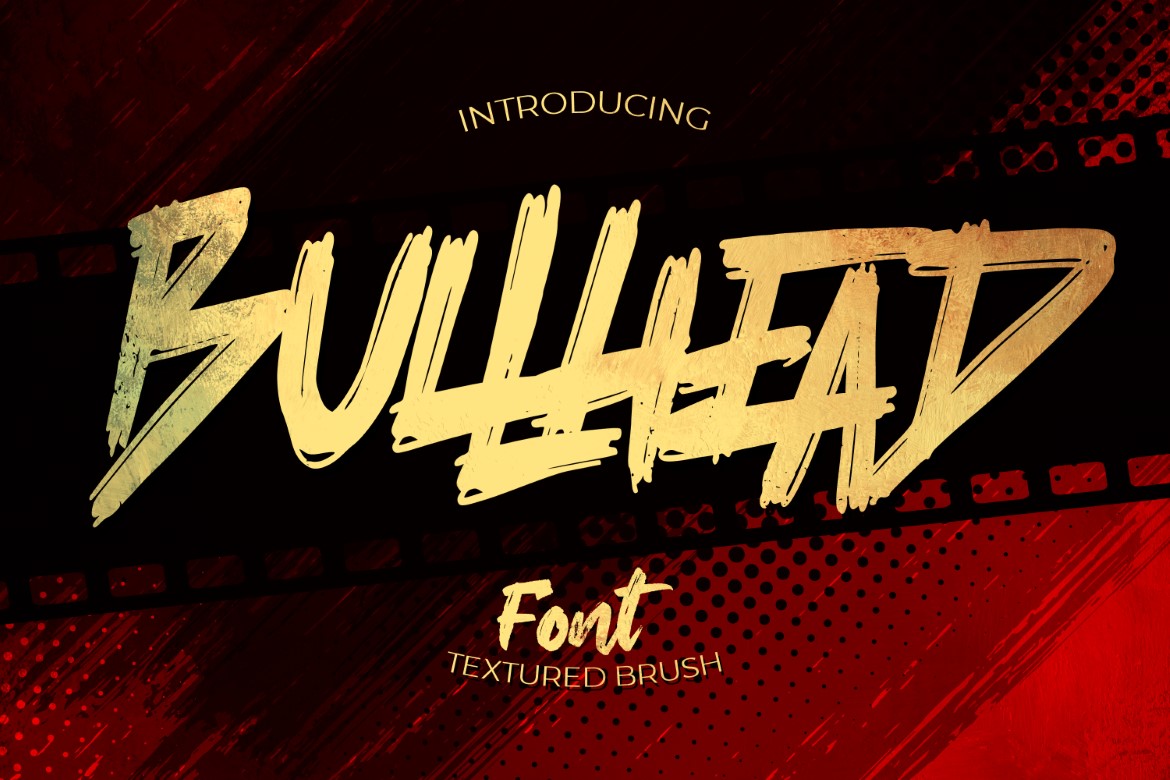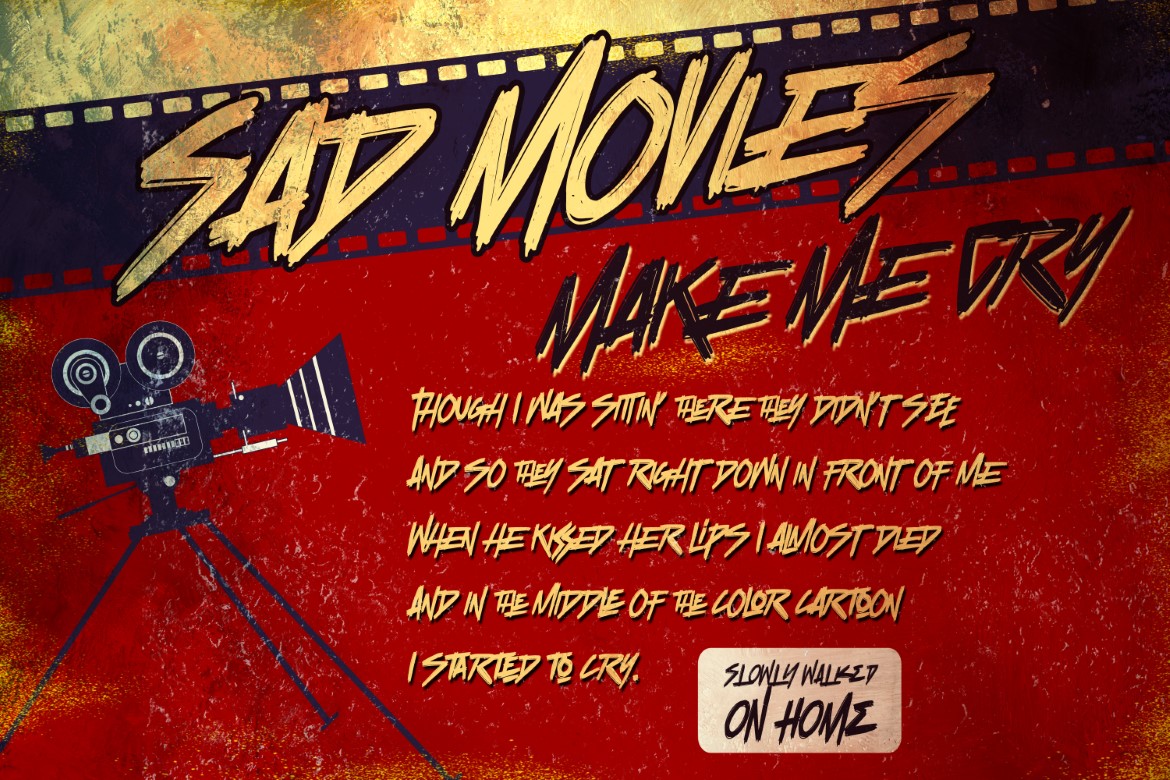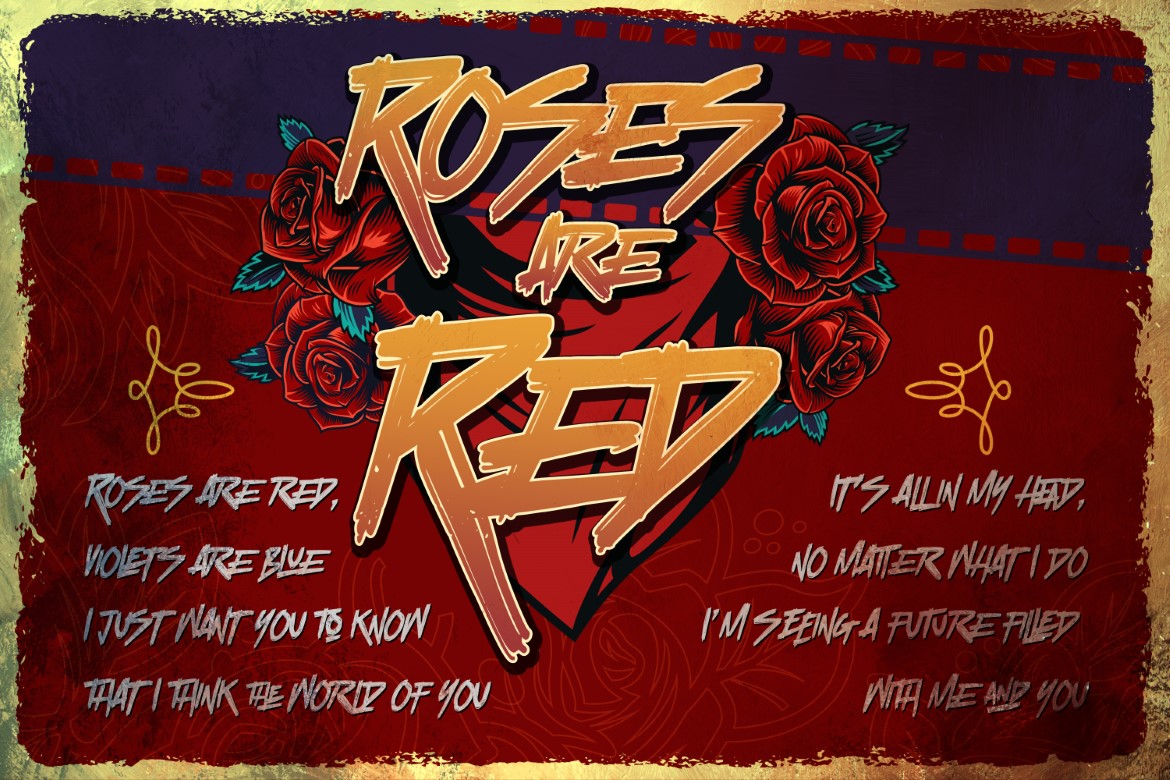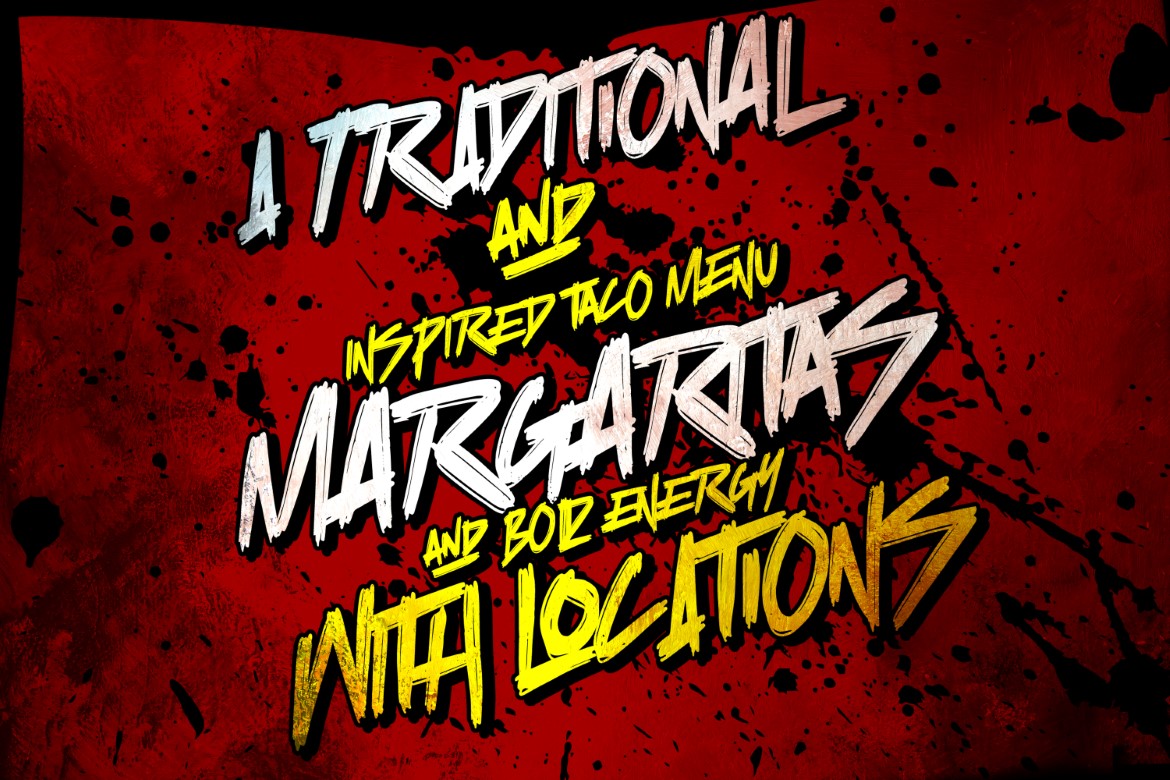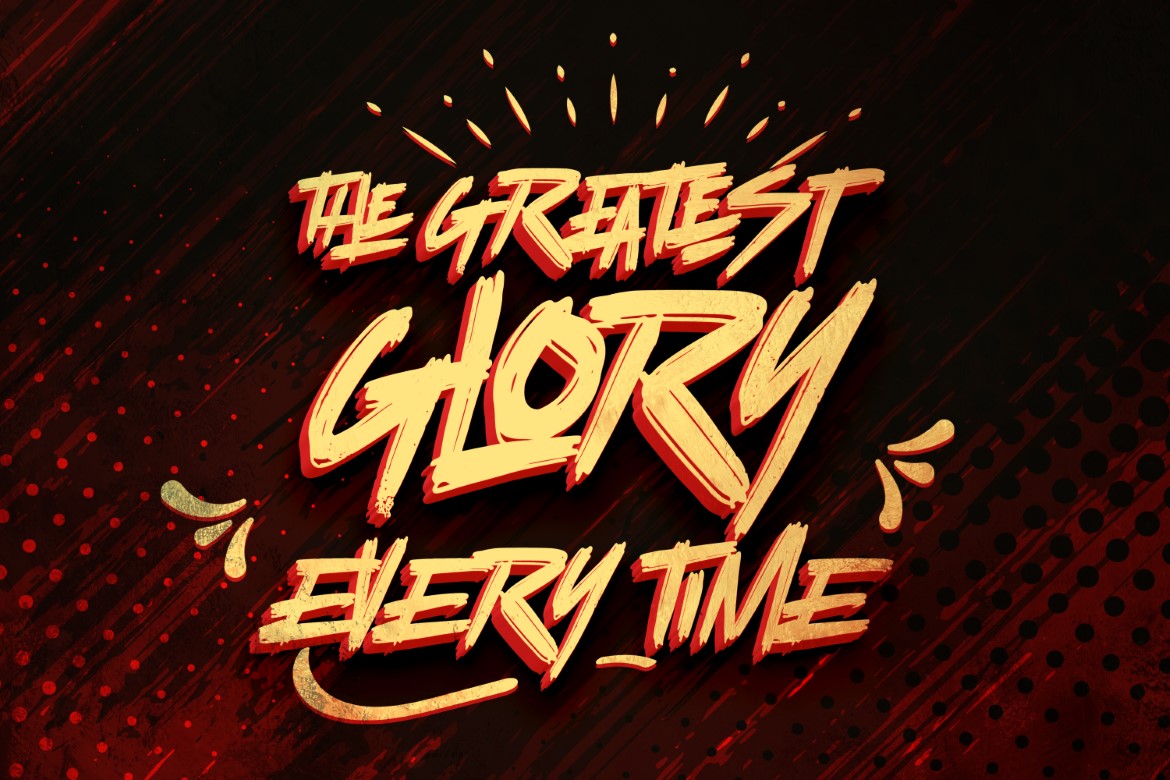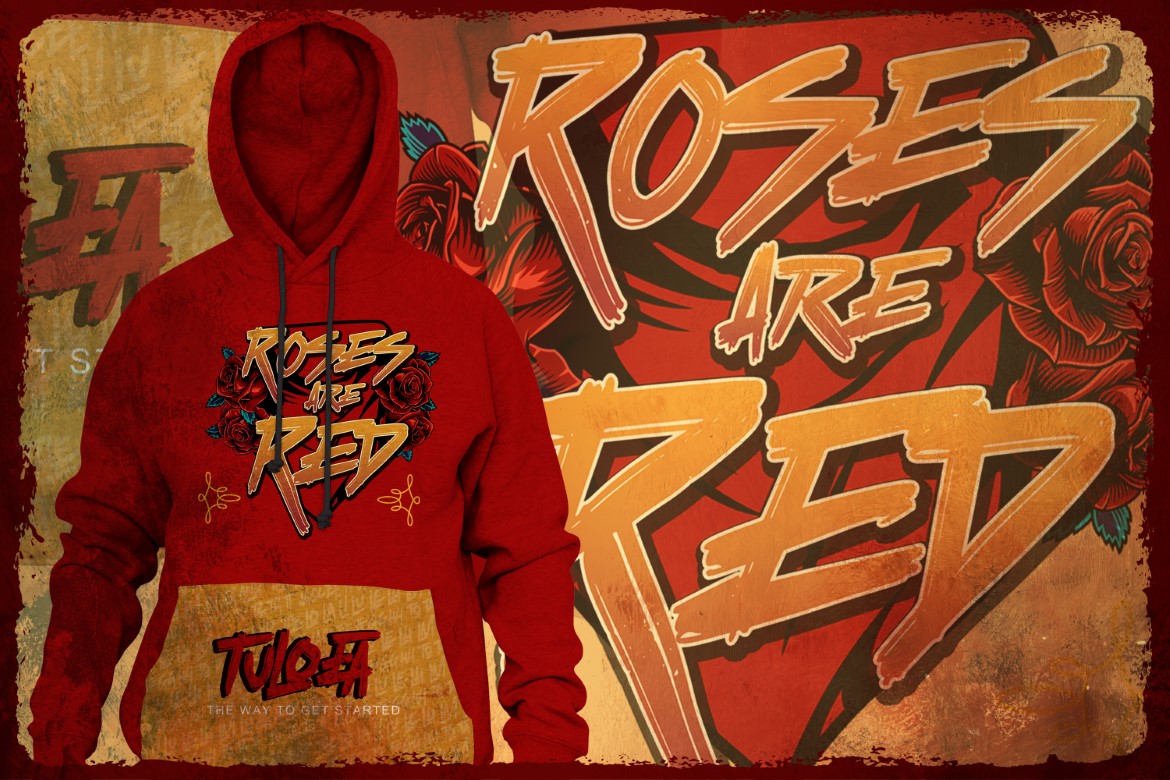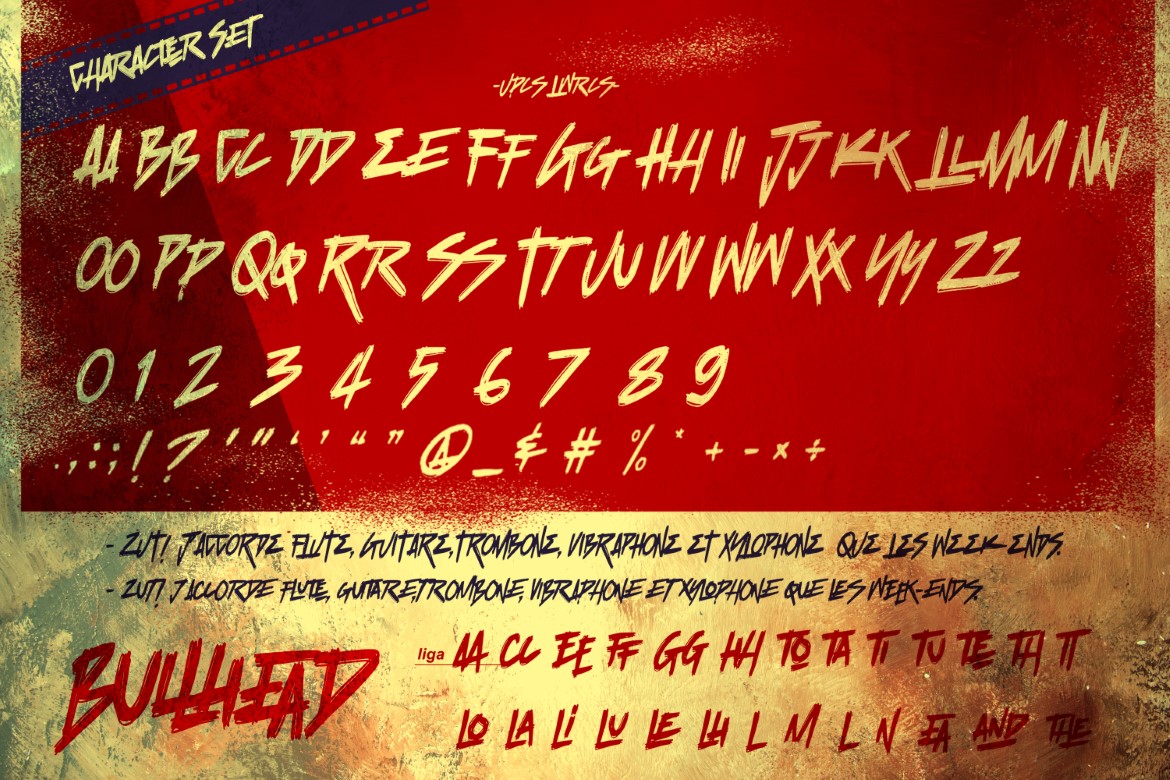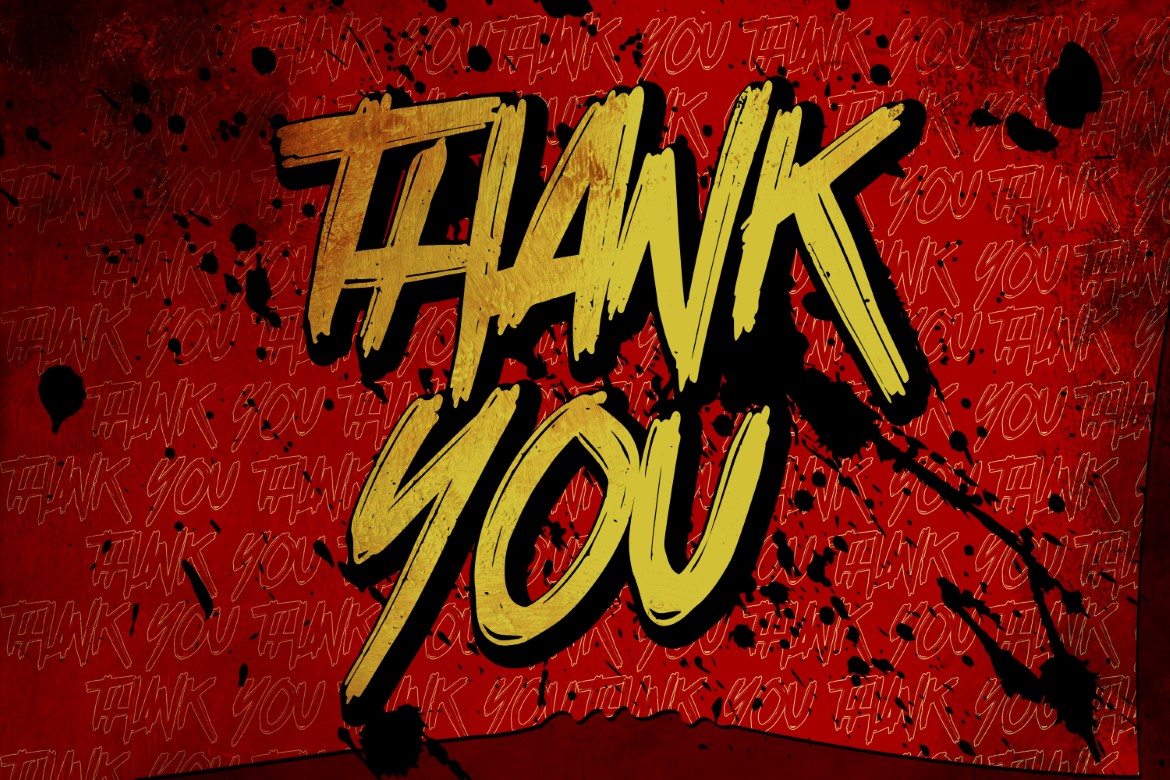
Bullhead – Font Textured Brush is an Authentic brush Font that is written casually and quickly.
That is why Bullhead has a authentic, and strong characteristic more natural look.
Bullhead Perfect for designs, branding projects, Logo design,Quotes product packaging and another Project that require cool strong Brush font.